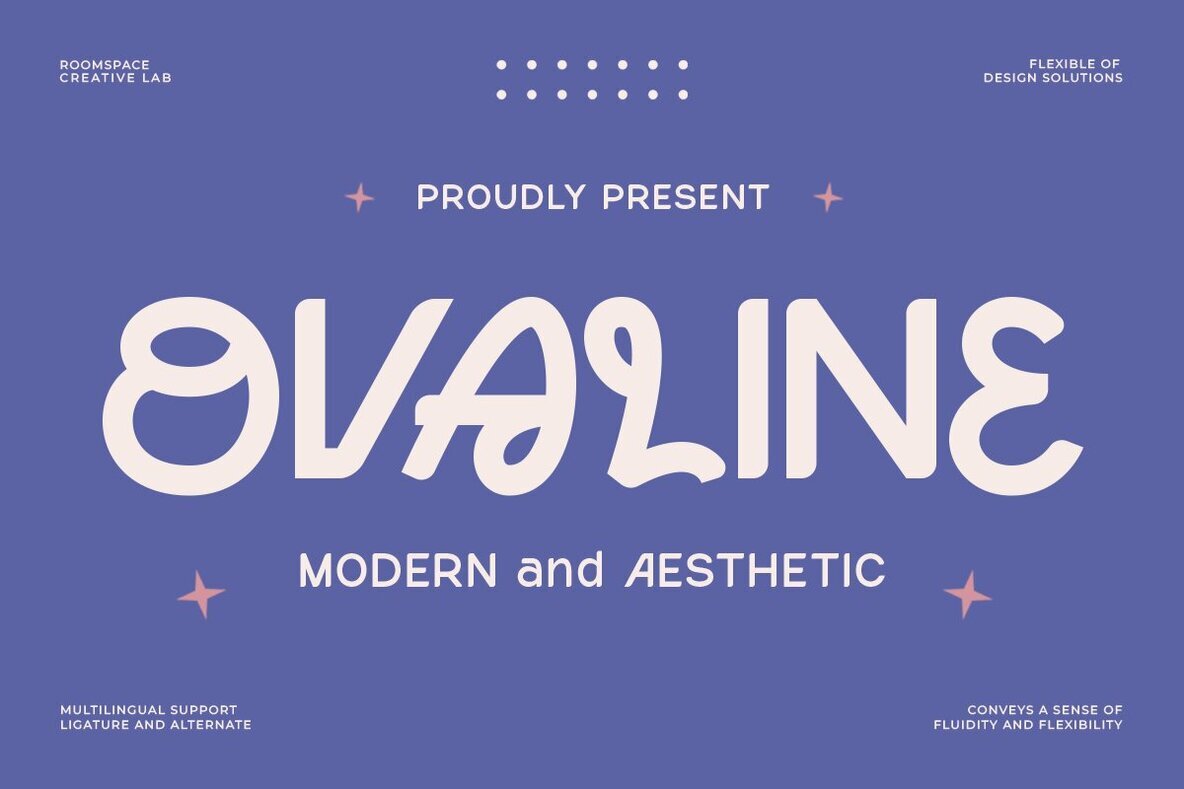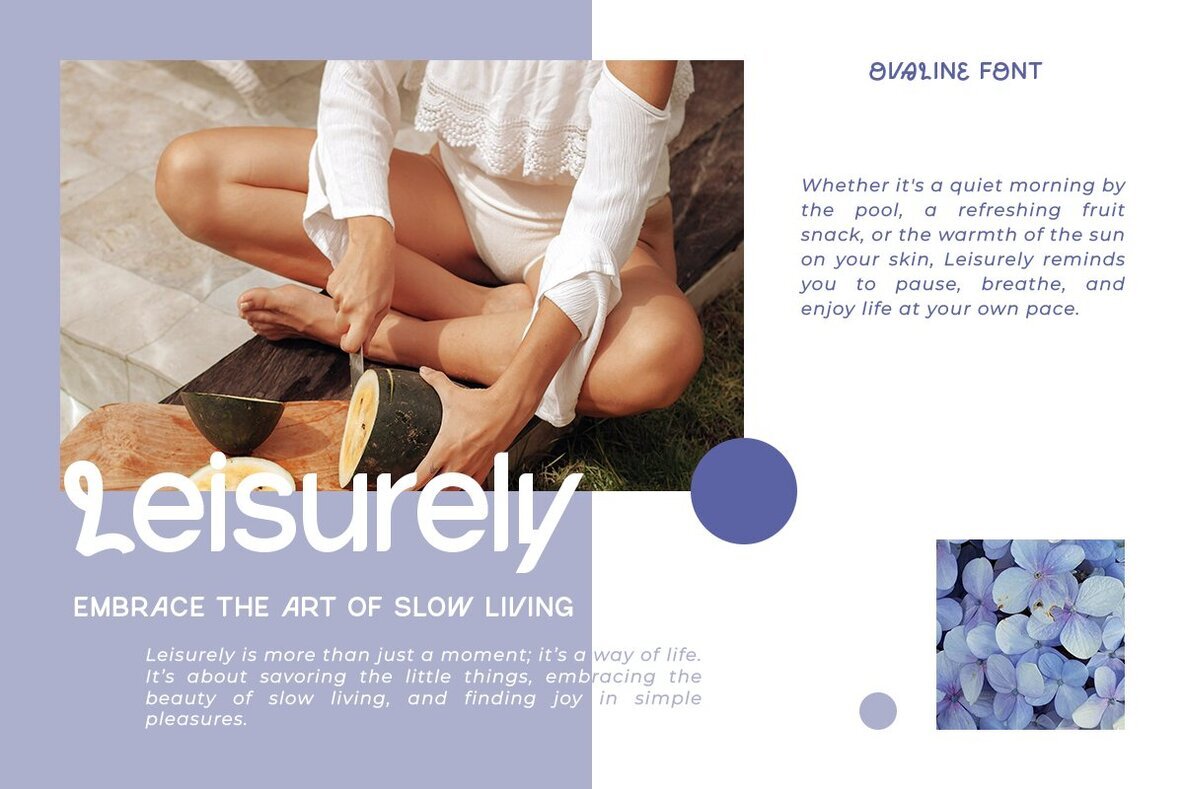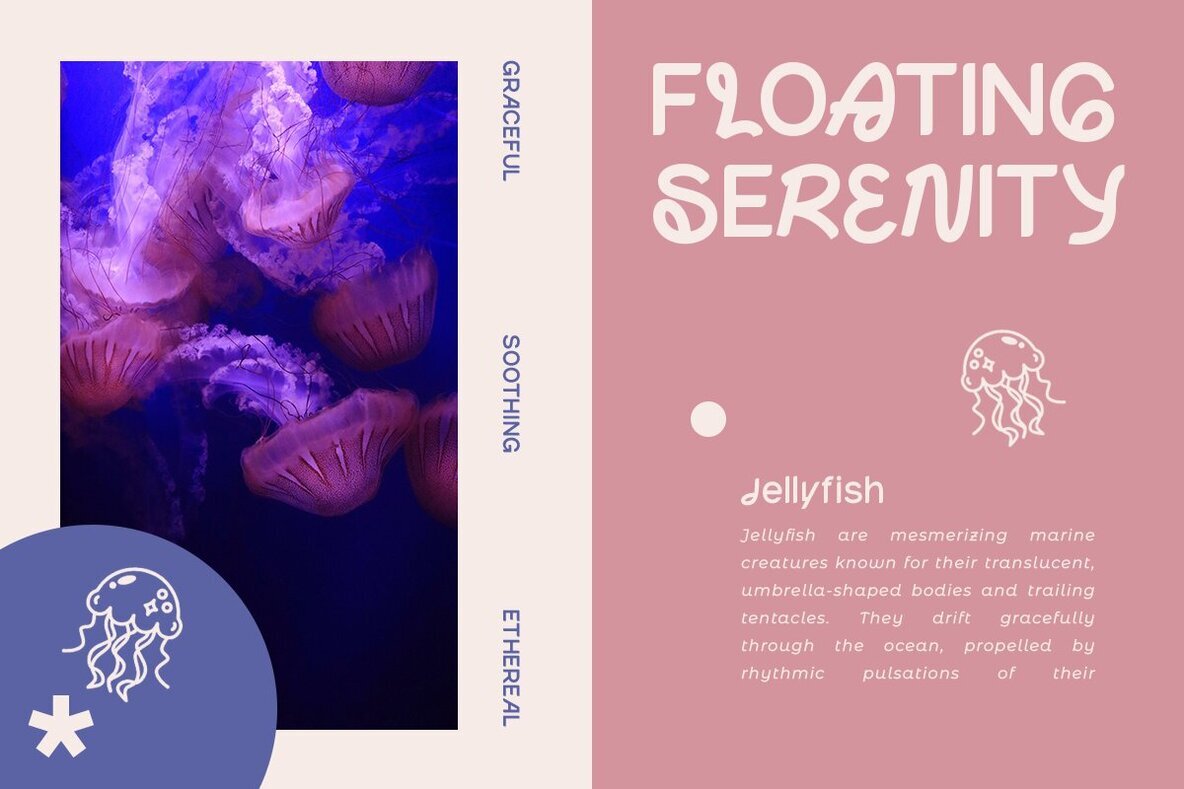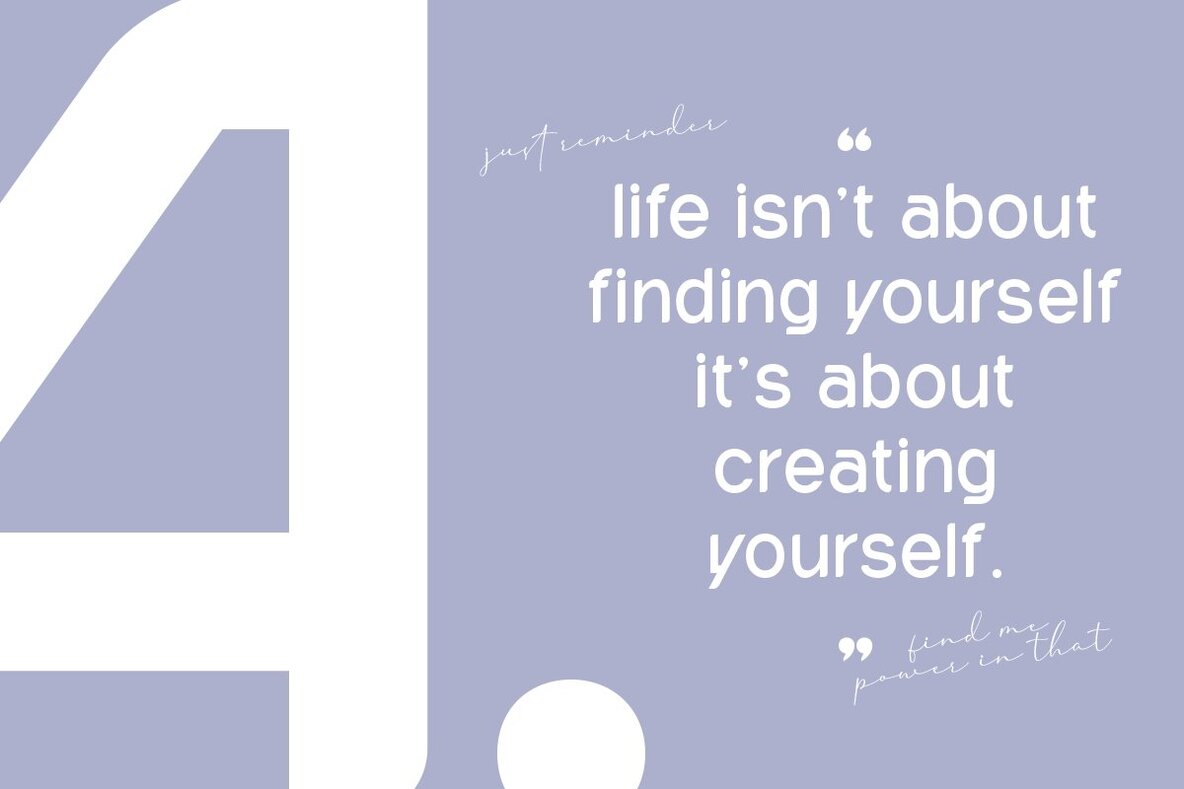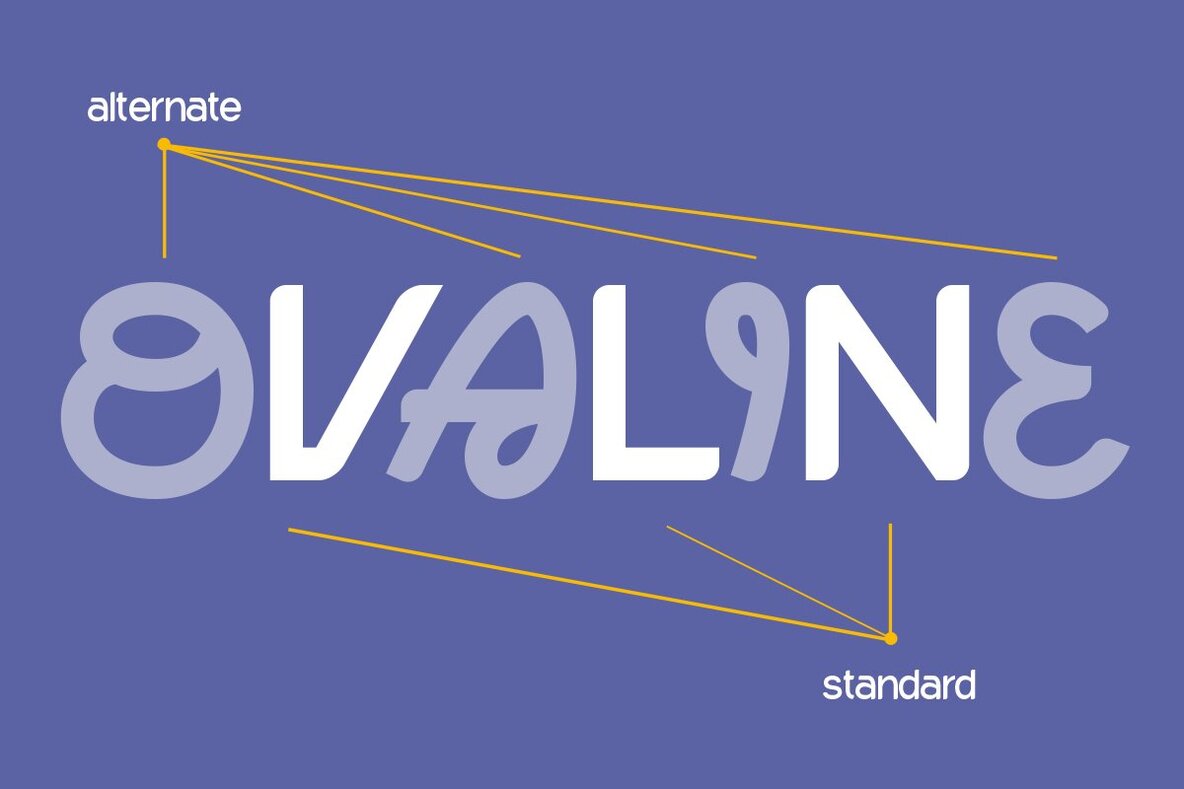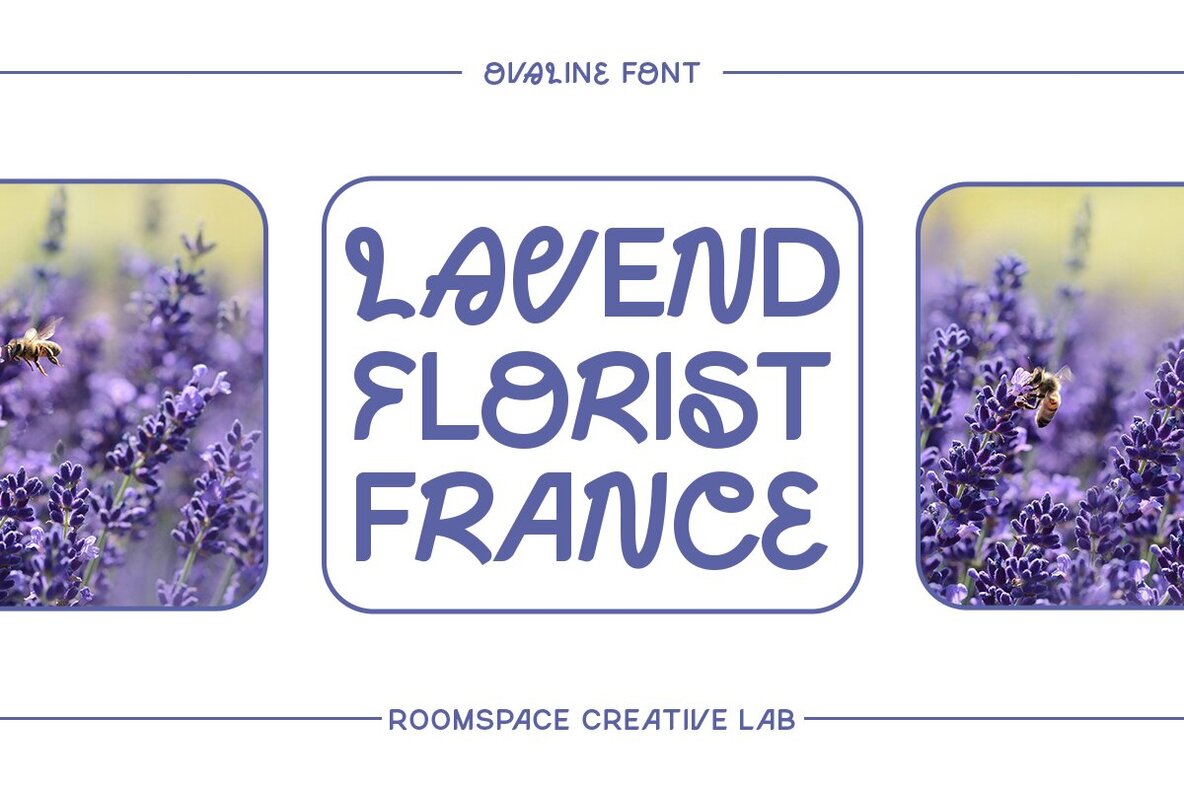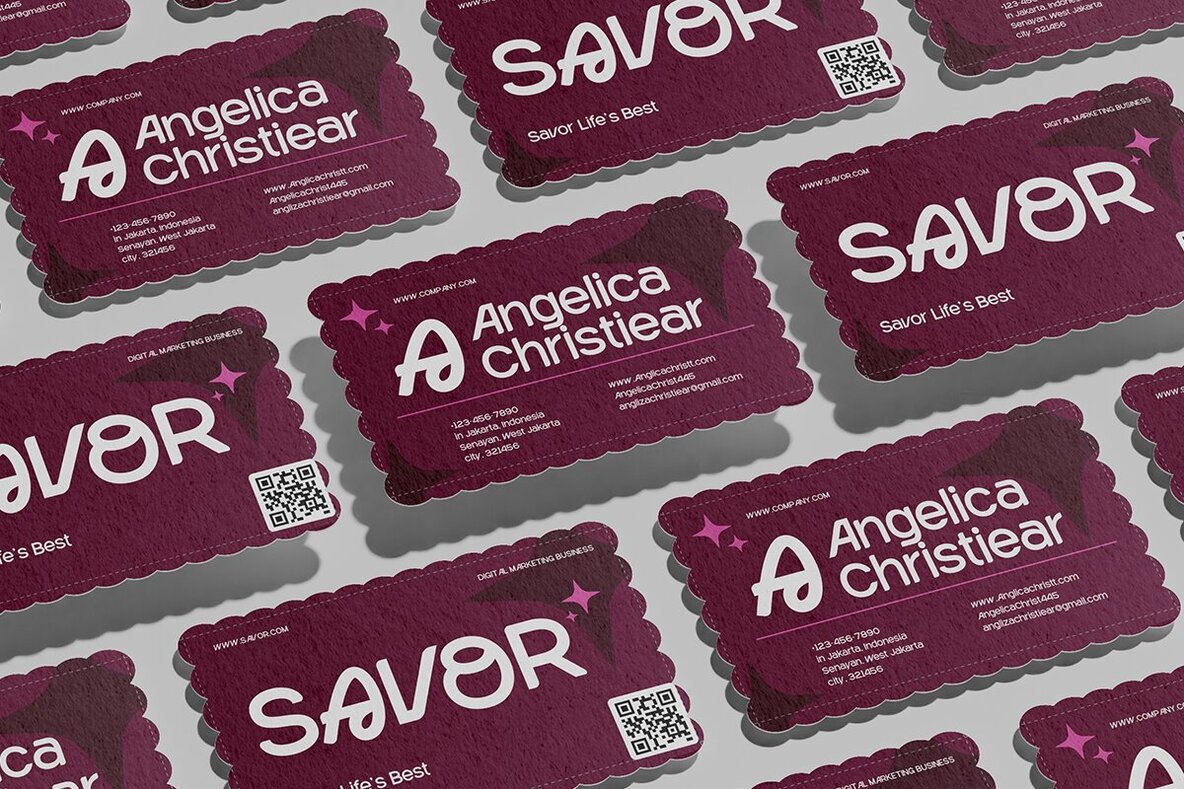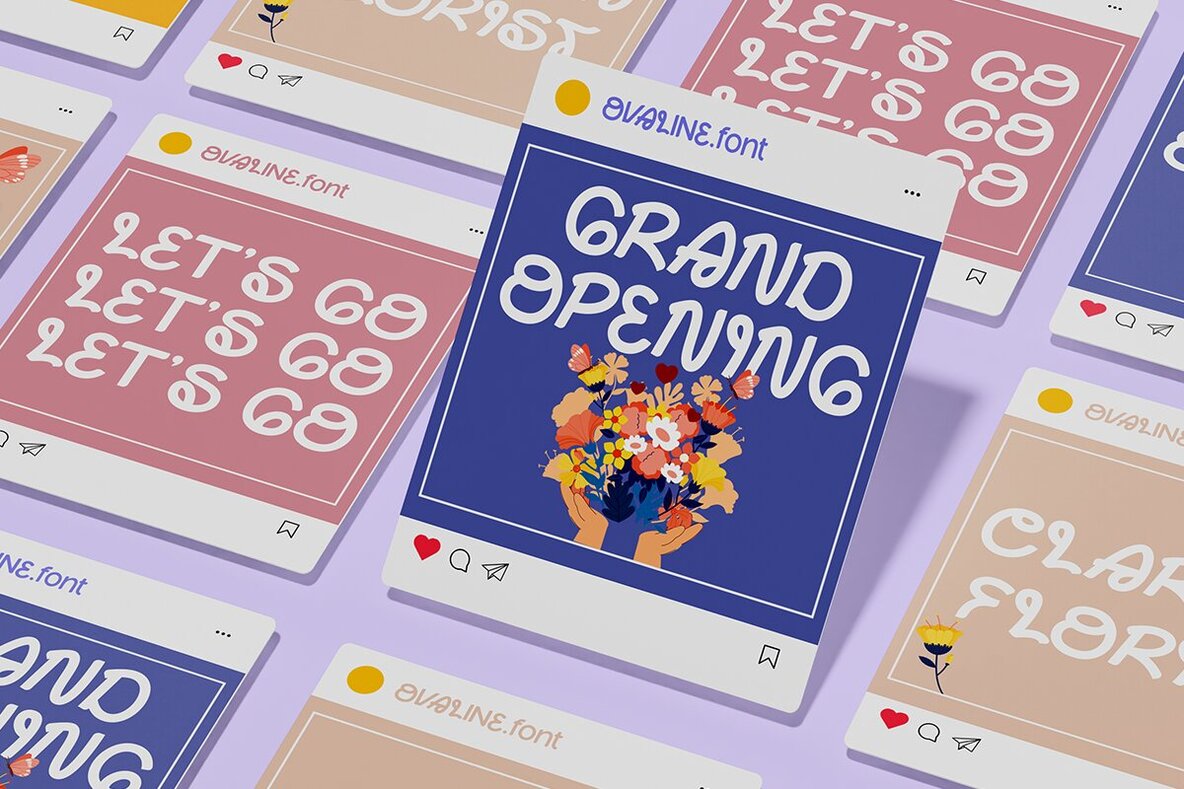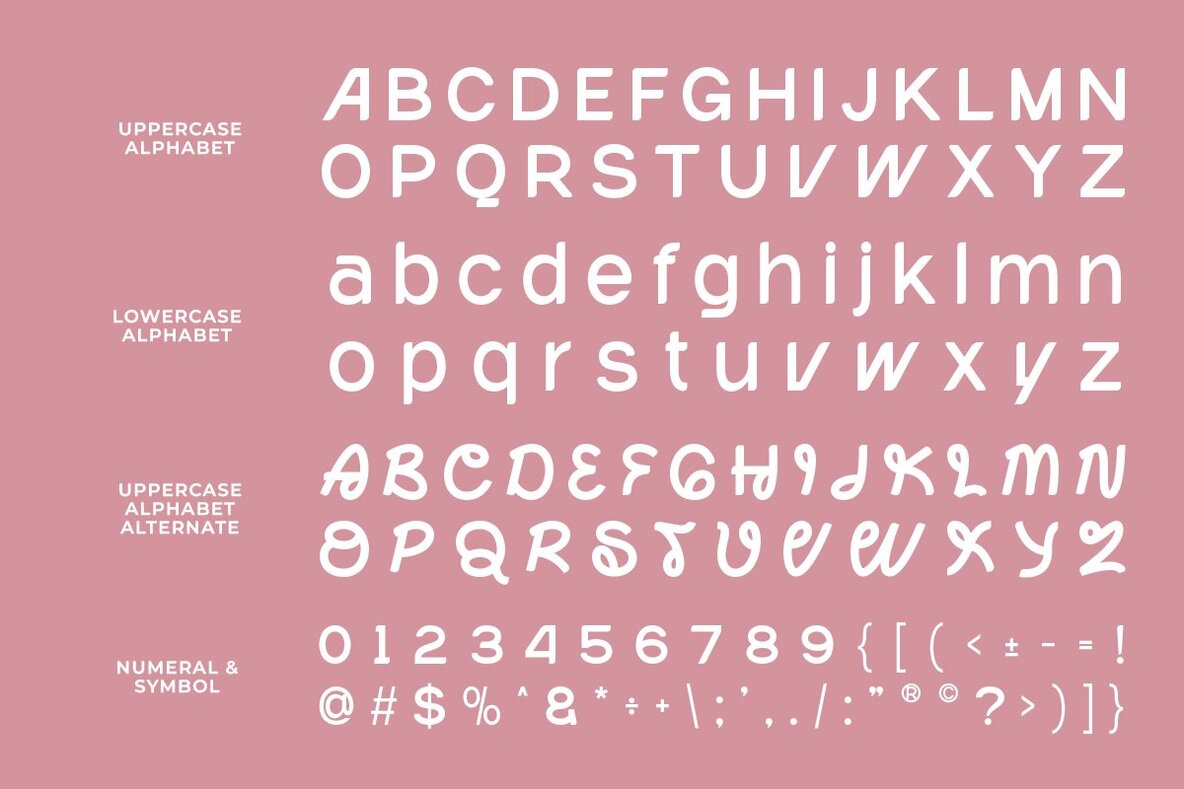
Ovaline Font
Ovaline Regular
Ovaline, a modern and aesthetic display font designed to bring uniqueness and creativity to your projects. This sans-serif typeface features smooth curves, and playful design, making it perfect for branding, editorial designs, packaging, and social media graphics. With a touch of fluidity and flexibility, Ovaline offers a stylish and versatile look that adapts beautifully to contemporary designs. Whether you're working on logo designs, fashion branding, or minimalist posters, this font ensures readability while maintaining a distinct personality. Support: